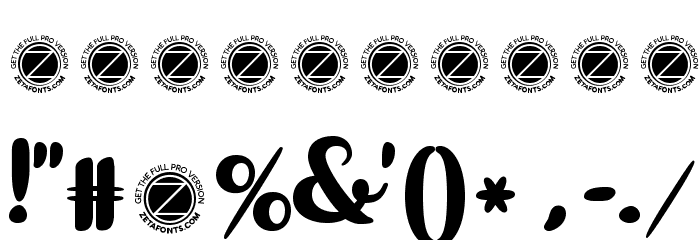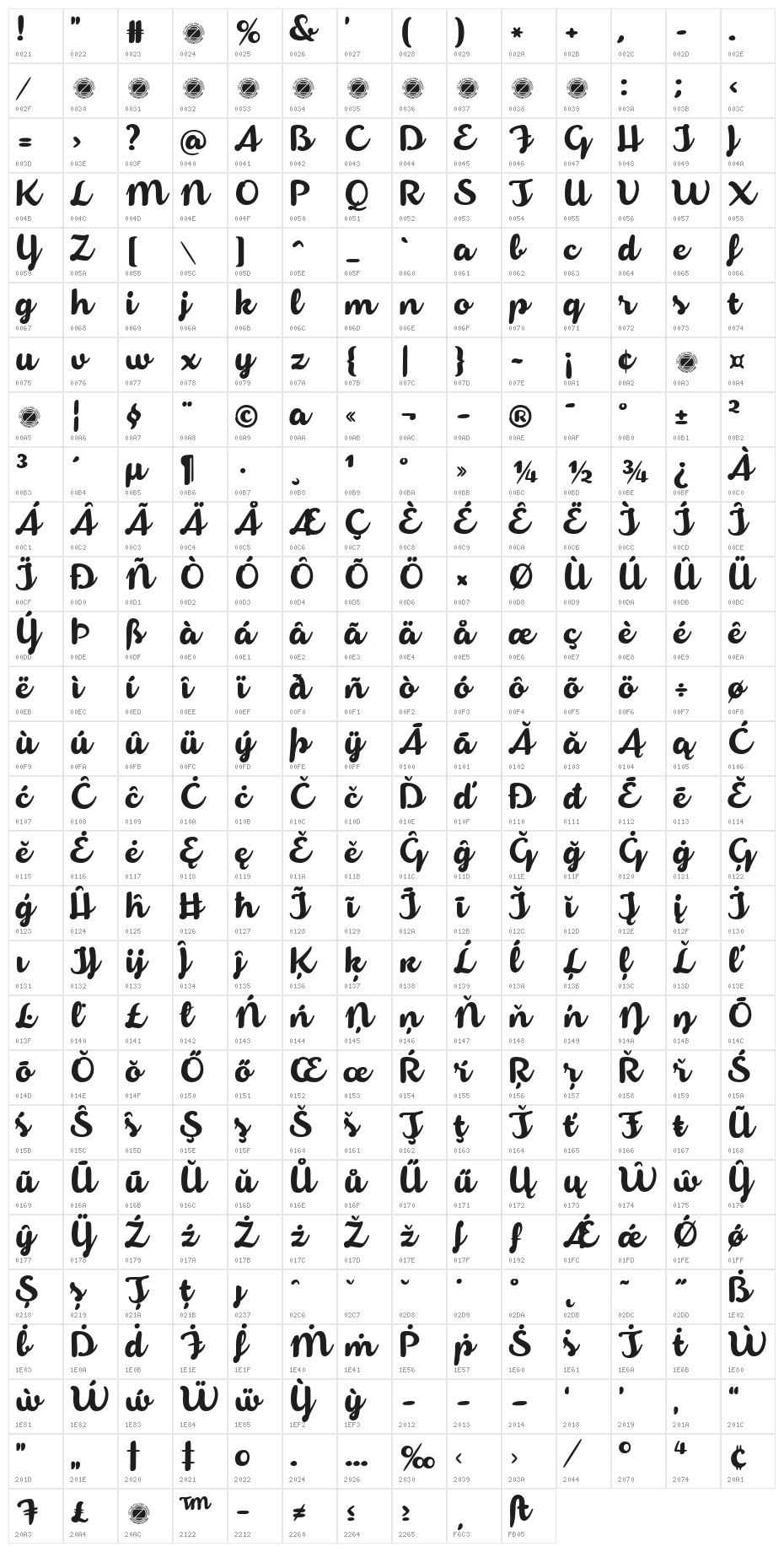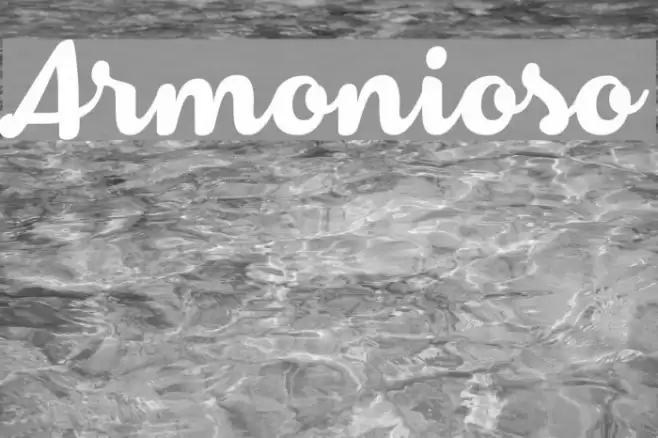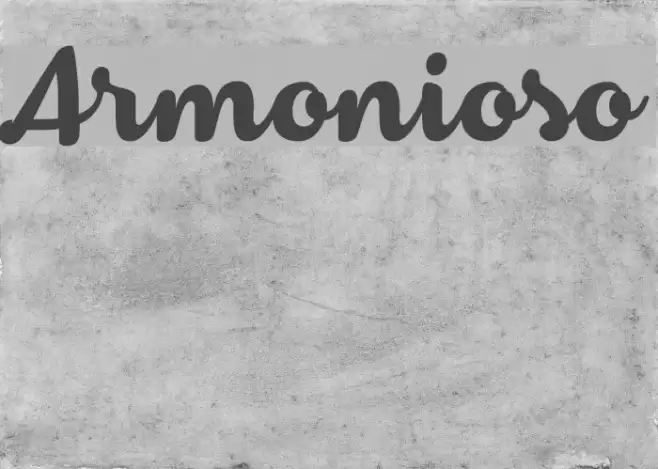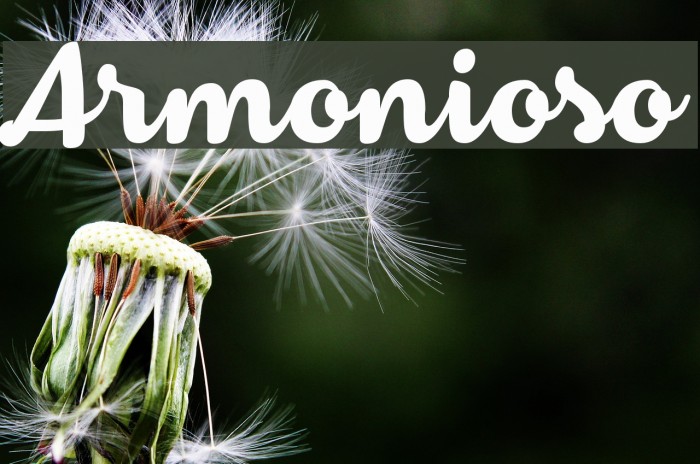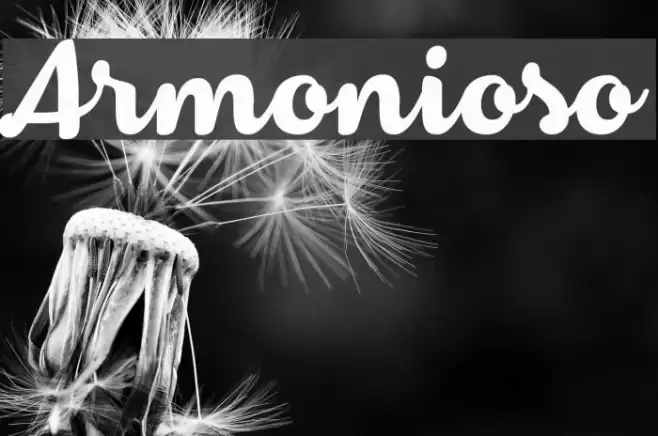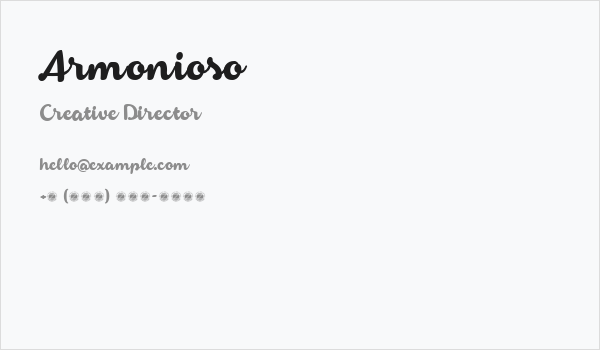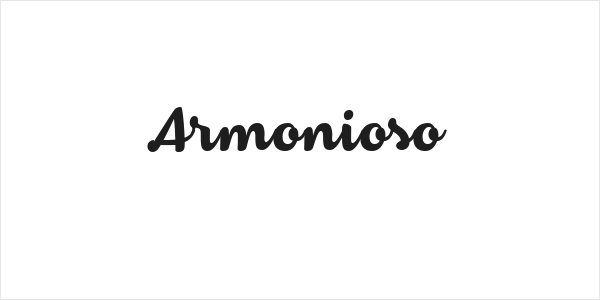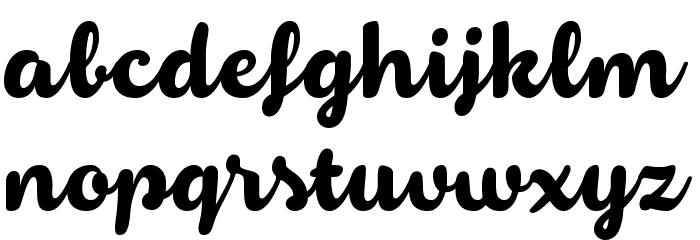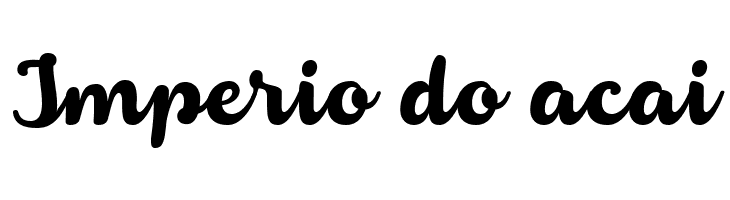
Armonioso Font
Armonioso Description
This font features a flowing, cursive style that exudes elegance and sophistication. The characters are interconnected with smooth, rounded strokes, giving it a harmonious and fluid appearance. The uppercase letters maintain a consistent height, while the lowercase letters exhibit a gentle slant, enhancing the script-like quality. The font's bold weight adds a sense of presence and impact, making it suitable for attention-grabbing designs. The spacing between characters is tight, which contributes to its cohesive and unified look. The high contrast in stroke thickness further emphasizes its decorative nature, making it ideal for creative and artistic projects.